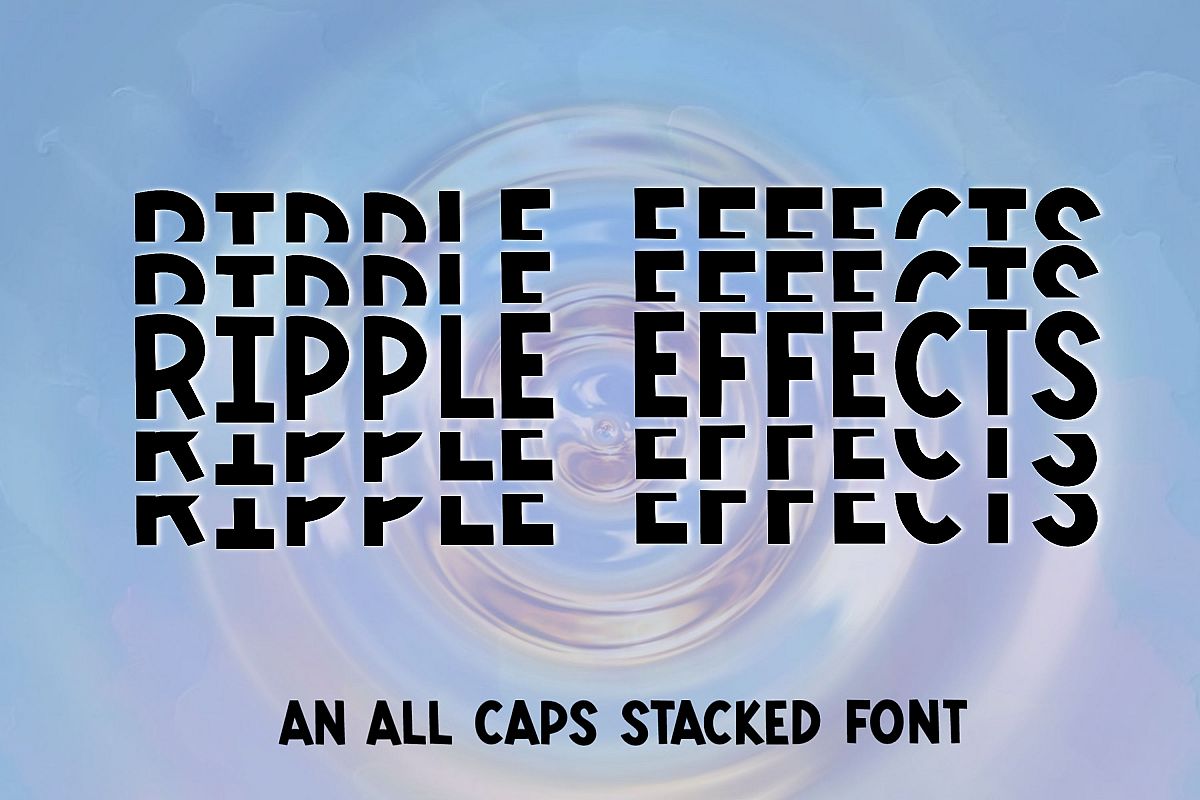
Ripple Effects - An all caps stacked font
Ripple Effects is a handwritten stacked font made up of capital letters A-Z and numbers 0-9 ONLY! Created with vinyl cutting machines in mind, Ripple Effects will give you a smooth clean cut!
Ripple Effects is great on its own but also pairs well with my Monkey Mahyem font as it was created from its capital letters -